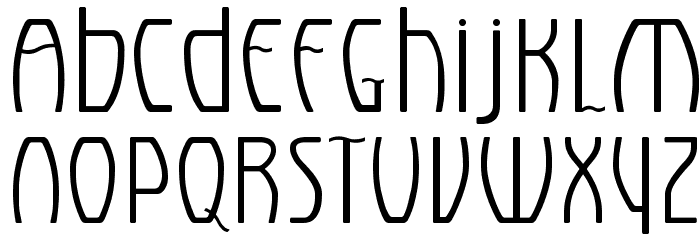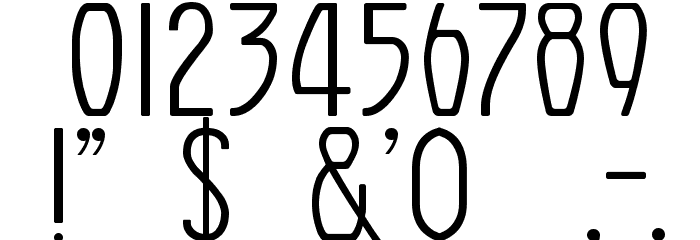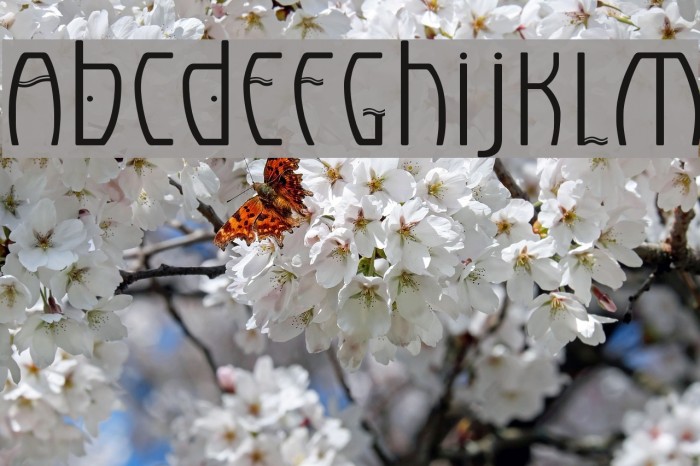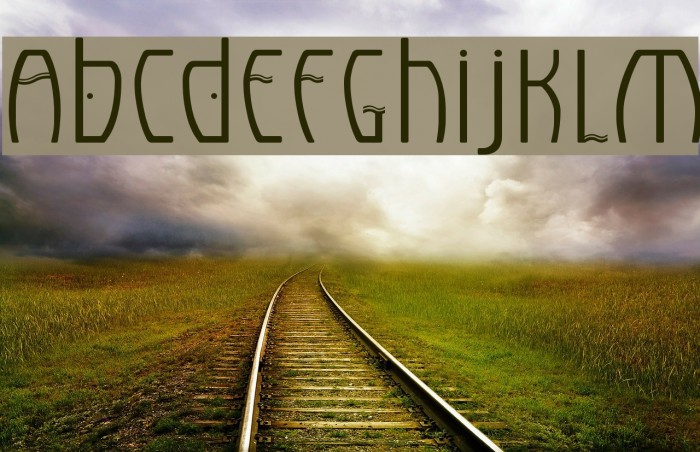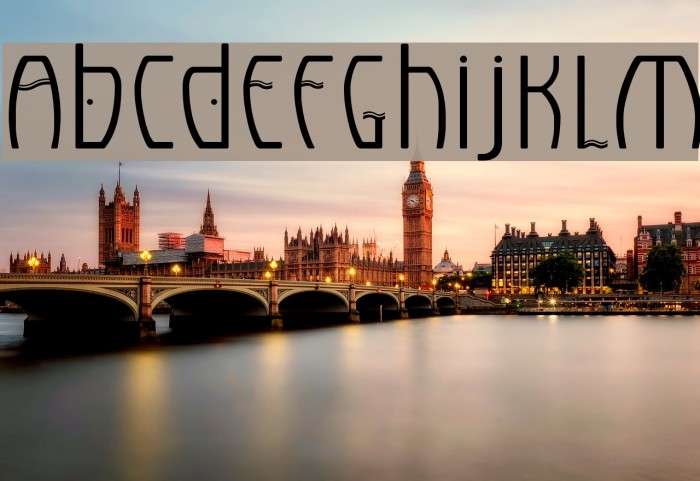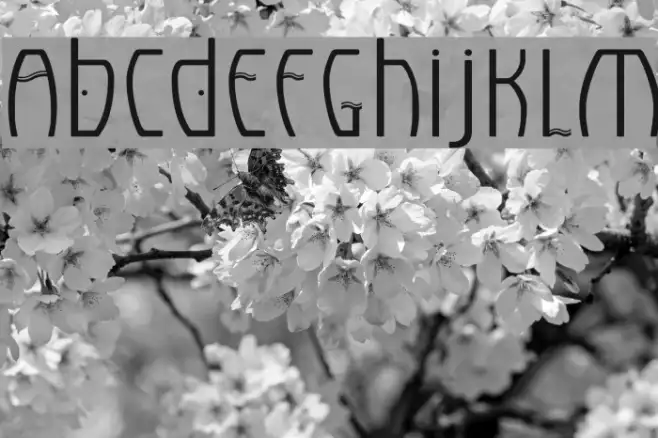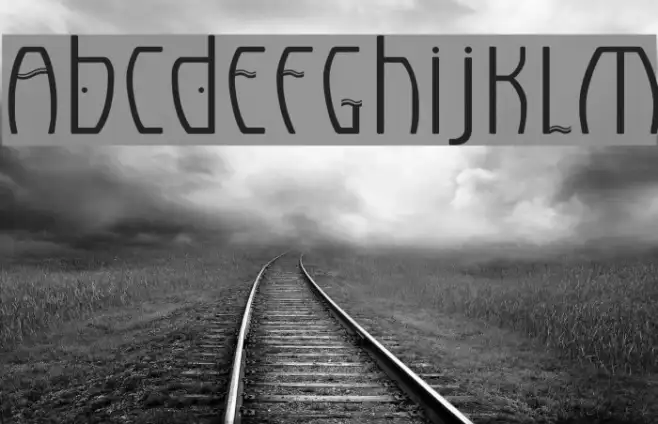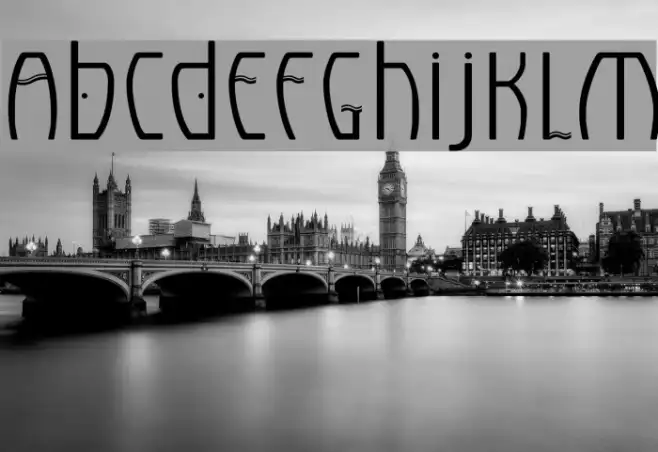
Eldora Font
This font features a unique and artistic design with a modern twist. The characters are elongated and have a distinct geometric style, with some letters incorporating subtle decorative elements like swirls and curves. The uppercase and lowercase letters maintain a consistent height, creating a uniform appearance. The numerals are similarly styled, with a sleek and contemporary look. Special characters are included, adding versatility to the font. The overall design is clean and minimalistic, making it suitable for a variety of creative projects.
A modern, geometric font with artistic decorative elements.
- Proposed Projects: Ideal for branding, posters, and creative design projects that require a modern and artistic touch.